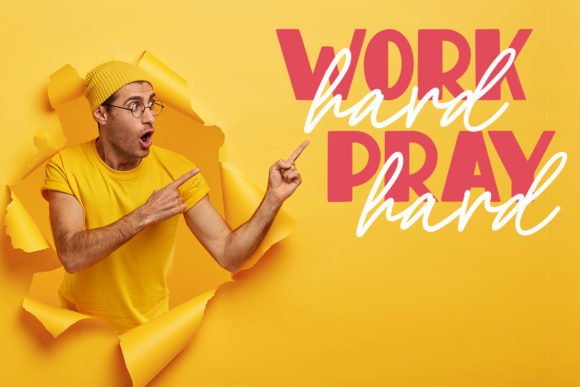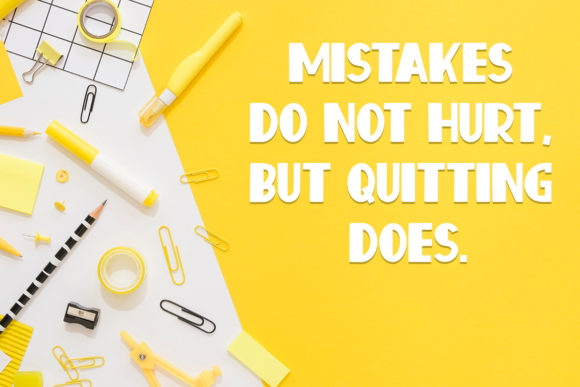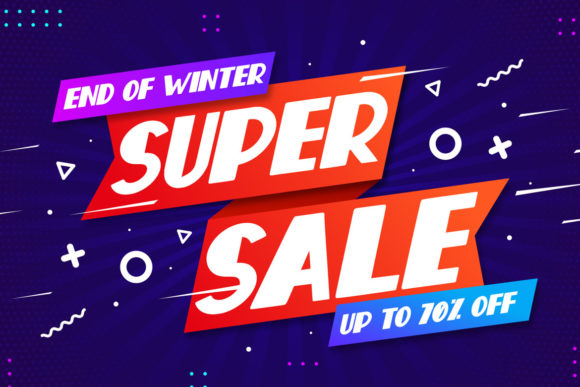
Introduction to Honella Font
Imagine you’re brainstorming ideas for your latest creative project and you need a typeface that can make your design truly stand out. You’re scrolling through a sea of fonts, but nothing seems to capture the essence of your vision. That’s when you stumble upon the Honella Font – a sleek, modern, and bold display font that’s sure to elevate your design to the next level.
The Honella Font is more than just a pretty face; it’s a valuable resource for designers who want to add a unique touch to their creative projects. With its high-quality design and transparent background, this font is perfect for web designs, business cards, and any other project that requires a bit of flair. And the best part? It’s available for free download, making it an accessible design resource for creatives of all levels.
- High-quality design: The Honella Font is a carefully crafted font designed for creative projects, offering a unique and elegant touch to any design.
- Perfect for creative projects: The Honella Font is ideal for use in creative projects such as logos, branding materials, advertisements, and more.
- Design resource: The Honella Font is a valuable design resource for anyone working on a creative project, offering a unique and stylish touch to any design.
Honest Review: Honella Font
I recently stumbled upon the Honella Font while searching for a high-quality, free design resource for a creative project. I must say, I was pleasantly surprised by its features and usability. ✨
The Honella Font is a beautifully crafted, modern font that’s perfect for various design applications. It’s available for free download, which is a huge plus. I love how it offers a transparent background, making it easy to layer and style within any design. The font’s high quality is evident in its crisp lines and smooth texture.
Here are some of the features I liked:
- High-quality, modern design
- Transparent background for easy layering
- Perfect for creative projects, such as graphic design, branding, and more
- Limited font variations (only a few styles are available)
Overall, I’m impressed with the Honella Font, and I’d definitely recommend it to designers looking for a reliable, free design resource. While it may have some limitations, its high quality and versatility make it a valuable addition to any design toolkit.
Honella Font is a free download, high quality design resource ideal for creative projects. This versatile font offers a unique aesthetic, perfect for designers looking to add a touch of elegance to their work.
To get the most out of Honella Font, use it on a transparent background to create a seamless design. You can also experiment with different font sizes and styles to achieve the desired look.
Honella Font is ideal for a variety of design projects, including:
- Brochures and flyers
- Website design and development
- Marketing materials and advertising